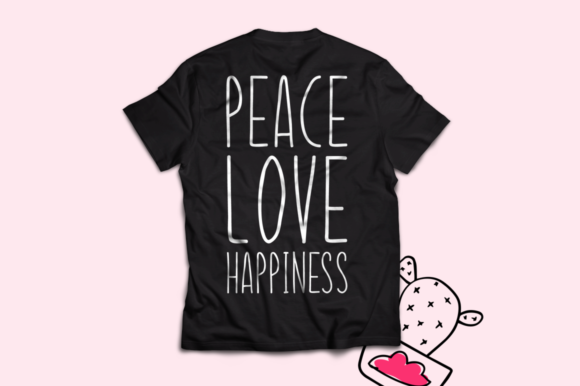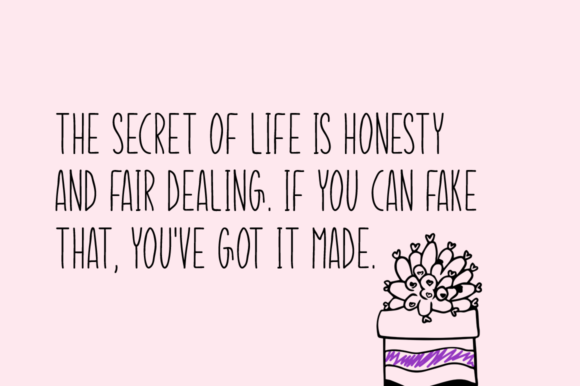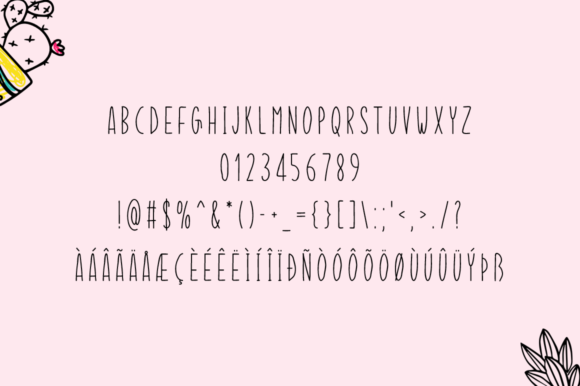
Introduction to Programs Font
Have you ever stared at a blank canvas, eager to bring your creative vision to life, but struggling to find the perfect font to set the tone? I’ve been there too! That’s why I’m thrilled to introduce you to Programs Font, a modern handwritten font that’s about to become your new best friend.
This gorgeous font is designed to add a touch of elegance and personality to any design project, from social media graphics to wedding invitations. With its high-quality strokes and transparent background, Programs Font is the perfect design resource for any creative project.
Key Features of Programs Font
- High-quality design resource with a transparent background, ideal for creative projects
- Designed with a modern and sleek aesthetic, suitable for a wide range of applications
Honest Review: Programs Font
As a designer, I’m always on the lookout for high-quality design resources that can elevate my creative projects. Recently, I stumbled upon Programs Font, and I’m excited to share my honest review with you.
- ✨ High-quality font with crisp lines and clean typography.
- ✨ Great for creative projects that require a professional touch.
- ⚠️ Limited character set, which may not be suitable for projects with complex text.
- ⚠️ No transparent background option, which can be a hindrance for designers who need to use it on top of images.
Overall, I’m impressed with Programs Font, especially considering it’s a free download. While it may not be perfect, it’s a great design resource for simple projects or those with a limited budget. I’d definitely recommend it to fellow designers who are looking for a high-quality font that’s easy to use.
Tips for Getting the Most Out of Programs Font
Experiment with different font sizes and styles to create visual interest. Use the Programs Font in combination with other design elements to create a cohesive look. Consider using the font in a free download template to get started quickly.
The Programs Font is a versatile design resource that can be used in a variety of creative projects, including presentations, documents, and social media graphics. It’s a great choice for designers and non-designers alike who want to add a touch of professionalism to their work.